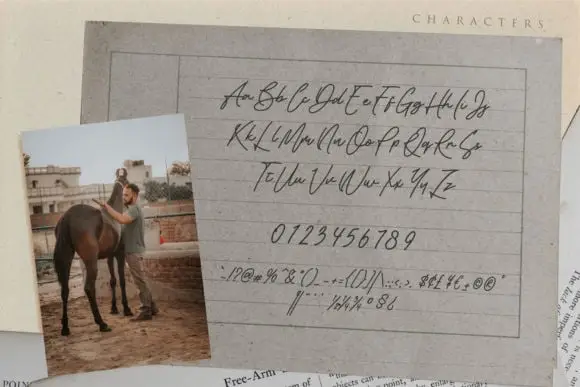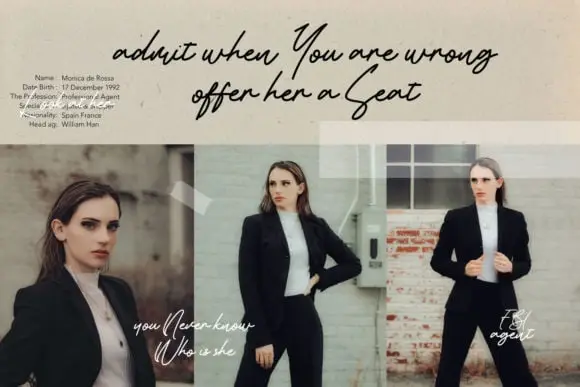
Danny Brassco Font
The Danny Brassco Font is a stylish and versatile typeface that adds a touch of elegance to your design projects. With its unique character and modern flair, this font is perfect for branding, logos, web design, and print materials.
• Ideal for creating eye-catching logos and branding materials.
• Use in web design for headings and titles to grab attention.
• Perfect for print projects such as invitations, posters, and flyers.